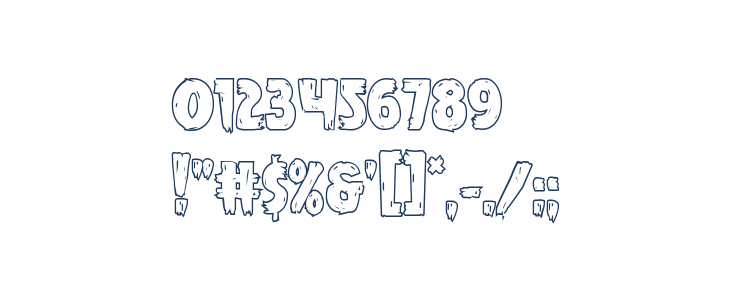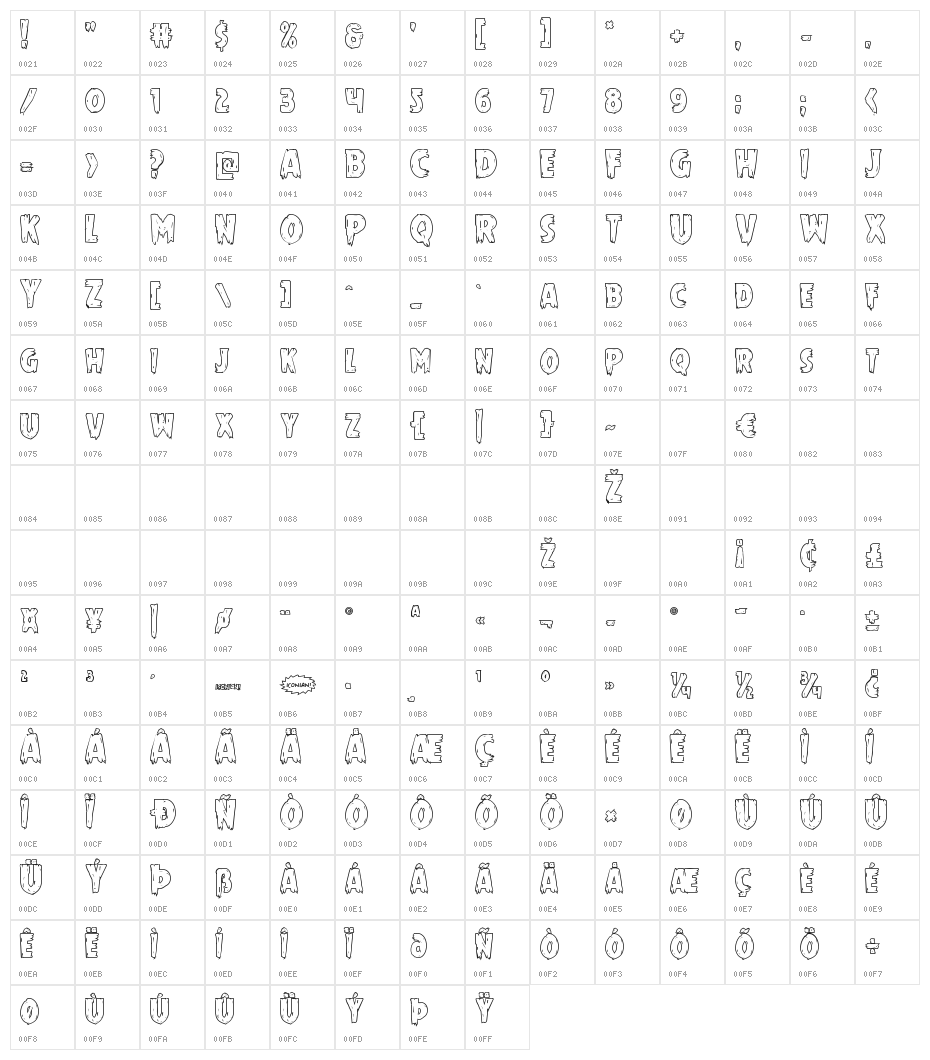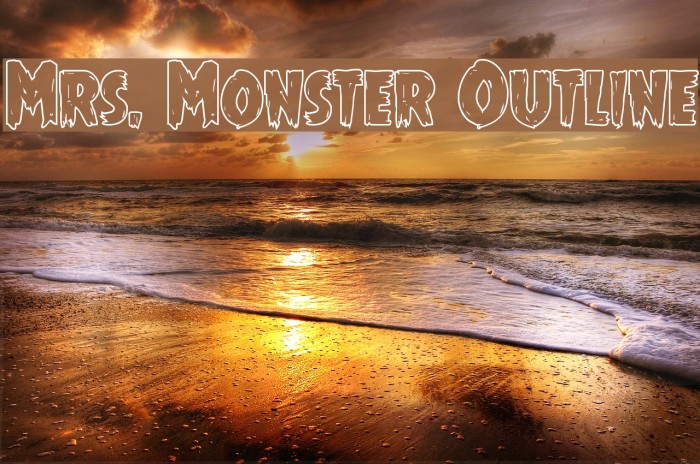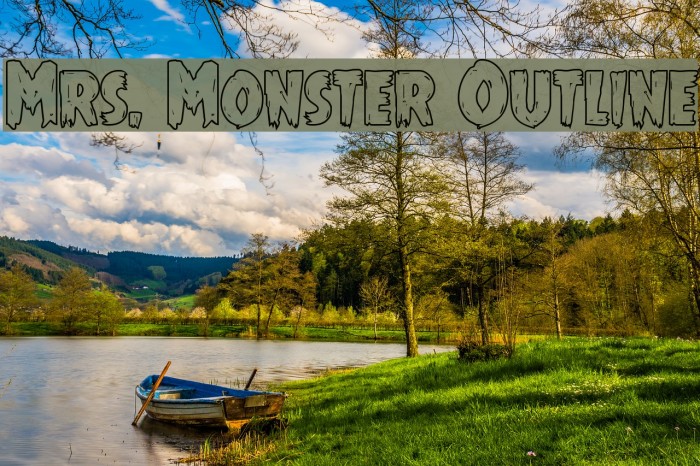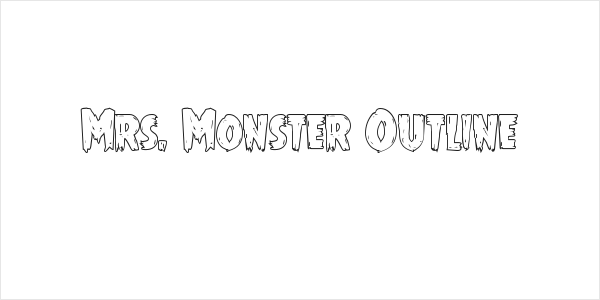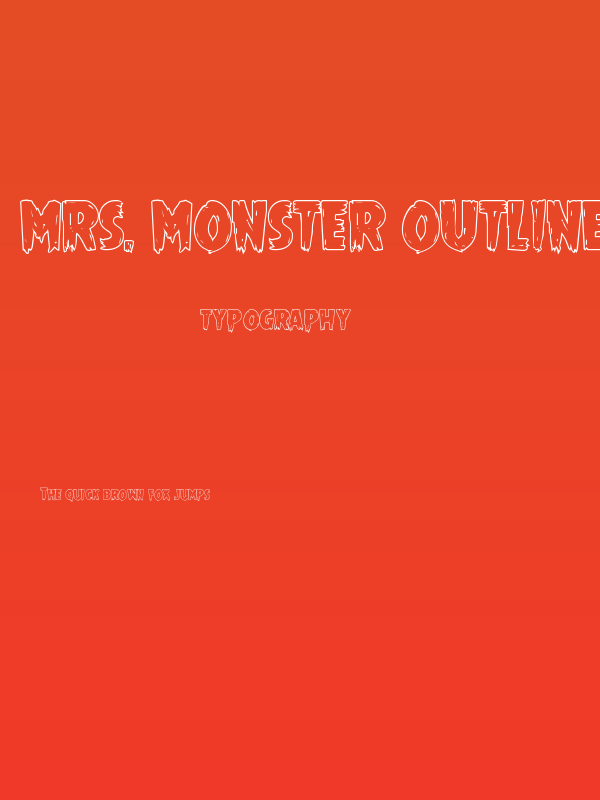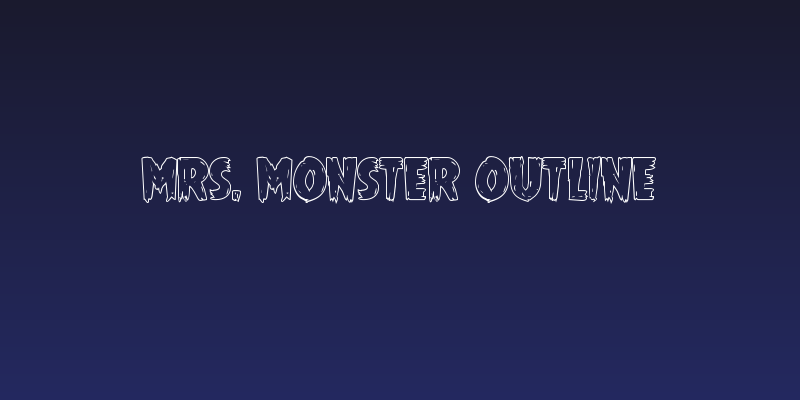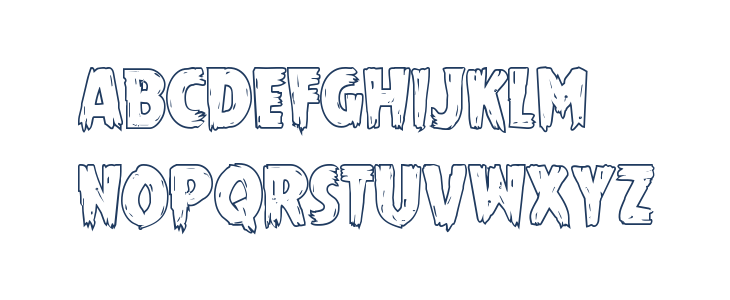
Mrs. Monster Outline Font
Mrs. Monster Outline Description
This font features a playful and spooky design, characterized by jagged edges and an outline style that gives it a cartoonish, monster-like appearance. The letters are bold and have a hand-drawn quality, with irregular strokes that add to its quirky and fun aesthetic. The uppercase and lowercase letters maintain a consistent style, with the numbers and special characters following suit. This font is perfect for Halloween-themed projects or any design that requires a touch of whimsy and fright.
| Proposed Projects | Ideal for Halloween invitations, themed posters, children's book covers, or any project needing a fun and spooky vibe. |